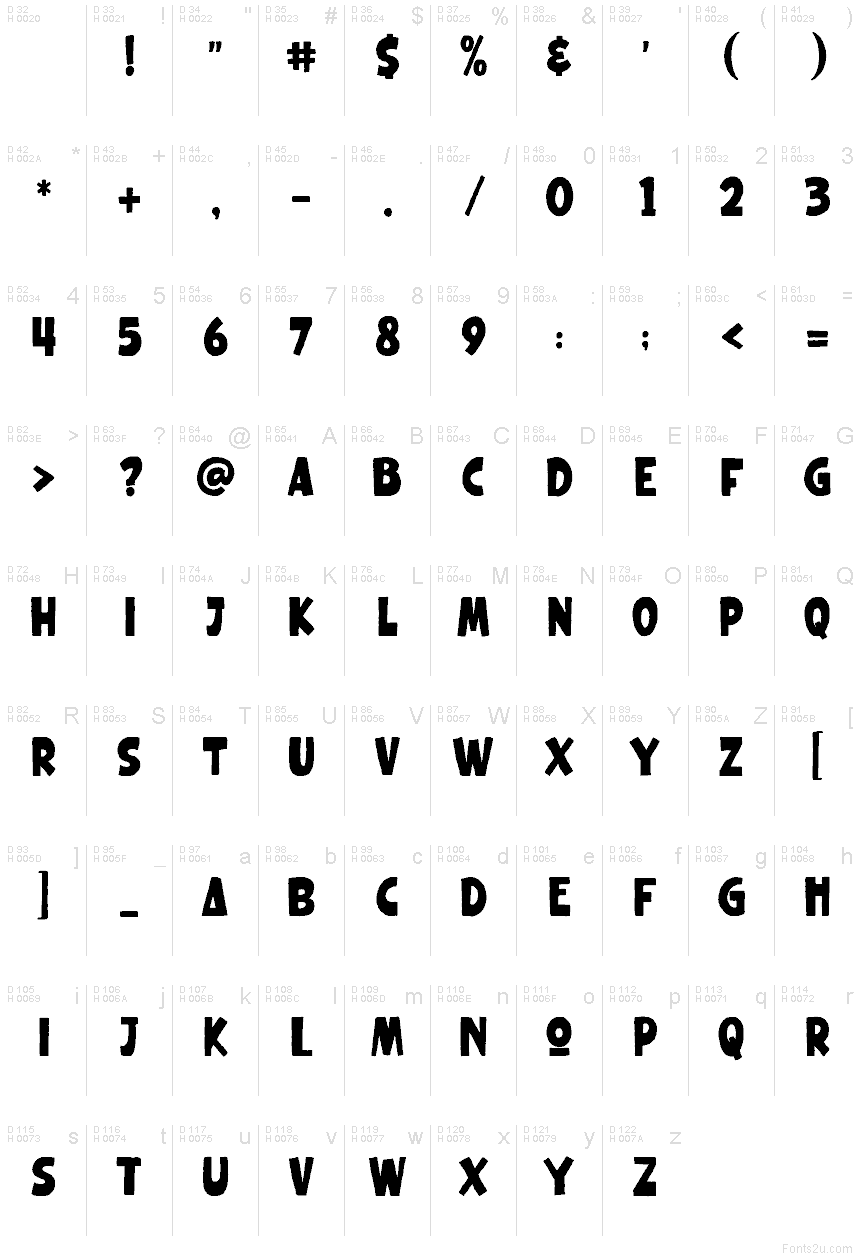
Elonic Regular
Elonic font by Blankids is a free bold cartoon display font. It stands out with chunky, hand-cut shapes that look ink-pressed—thick strokes, slightly wobbly sides, and pillowy counters give it a playful, tactile thump. Letters lock together like soft blocks, so headlines read loud and lively without feeling harsh.
Using Elonic, your titles pop on kids’ packaging, birthday posters, comic covers, YouTube thumbnails, toy branding, and snack labels. This free font thrives big and centered; add a hair of extra tracking for air. For balance, pair it with a clean rounded sans for smaller text—let Elonic carry the shout while the sans handles the details.